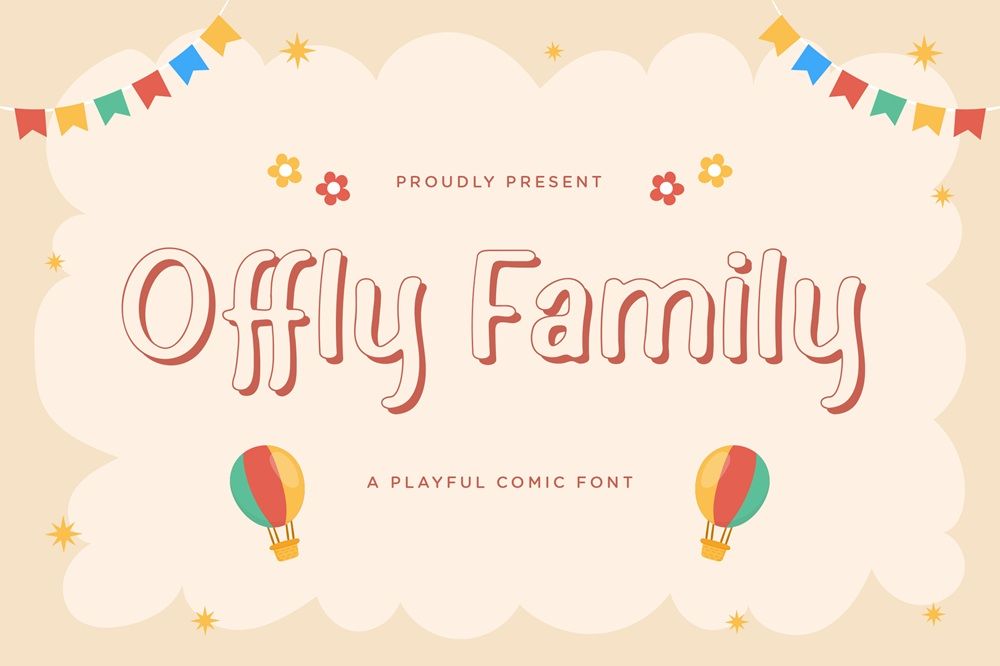
40 Family Quotes That Capture the True Meaning of Home
Family is our first circle of supporters who always believe in us before the world ever does. They lift us through challenges and celebrate our quiet victories. That’s why family quotes feel so powerful and comforting in everyday life. They capture the warmth, love, and belonging that make home our safest place.
Moreover, as we grow and our stories change, these quotes continue to guide and inspire us. They spark gratitude, strengthen bonds, and highlight moments we often overlook. So, keep reading and let these heartfelt words speak to you!
40 Family Quotes for Captions, Gifts, and Home Decor Ideas
If you’re preparing a heartfelt gift, enhancing your home décor, or searching for captions to highlight meaningful moments, these warm quotes about family will help. Let’s dive in!
Minimalist Family Quotes
1. Family grows strongest when love stays simple, honest, and quietly understood.
2. Becomes peace when hearts choose patience over noise and expectations.
3. In our small moments together, family love shines its brightest light.
4. Family remains steady when we listen gently and care without conditions.
5. Our togetherness matters more than perfect plans or beautifully arranged days.
6. Love within a family deepens through shared silence, support, and kindness.
7. Family is built daily through tiny gestures that quietly strengthen connection.
8. We become better together when kindness leads to every choice we make.
9. A calm family grows from understanding, trust, and consistently choosing love.
10. Simple family moments often become memories that warm us for years.
When Family Hurts You Quotes
1. When family wounds you deeply, silence becomes heavier than spoken pain.
2. Hurt from family lingers longest because love expects safety, not sorrow.
3. Broken trust from family cuts differently, leaving quiet scars inside forever.
4. Love aches hardest when family becomes the source of our heartbreak.
5. Sometimes family breaks us, yet we keep loving them through tears.
6. When home hurts, healing feels confusing, slow, and painfully uncertain inside.
7. Family pain teaches strength we never wanted but learned to carry.
8. Their words shattered me quietly, leaving echoes I still face alone.
9. Hurt feels heavier when coming from people meant to protect us.
10. Even loved ones can wound deeply, leaving memories difficult to forgive.
Inspirational Quotes About Family
1. Love at home inspires courage to grow beyond every lingering doubt.
2. Their belief in me strengthens every dream I once feared chasing.
3. We rise higher when we lift each other with genuine encouragement.
4. Home becomes powerful when support replaces criticism and quiet fear.
5. Their faith in me sparked confidence I never knew I had.
6. Together we learn resilience through challenges that seemed impossible alone.
7. Every step forward feels easier when love surrounds our intentions.
8. Hope grows stronger when shared with hearts walking beside us.
9. Their guidance lights paths I never imagined I could follow.
10. Strong roots at home help us reach dreams far above.
Lighthearted Family Quotes
1. Our family survives chaos daily with snacks, hugs, and questionable decisions.
2. Laughter grows louder when we accidentally match chaos with humor.
3. Home feels happier when nobody pretends to be perfectly normal.
4. We argue loudly, love harder, and snack constantly without shame.
5. Every family moment improves when someone brings unexpected home.
Family Love Quotes for Parents, Kids, and Siblings
1. Parents guide gently, helping us grow stronger with every small challenge.
2. Kids remind us that joy lives in simple moments we often overlook.
3. Siblings tease endlessly, yet protect fiercely when life feels difficult.
4. Parents teach love through patience, presence, and everyday quiet sacrifices.
5. Kids fill our home with laughter, chaos, wonder, and unforgettable memories.
7 Fonts for Family Quotes That Bring Warmth to Every Design
To make your quotes for family feel more meaningful, the fonts you choose play a powerful role in shaping the emotion behind every word. Thus, use these font choices to bring extra warmth, charm, and heart to every family-centered design you create.
1. Offly Family
A fun and cheerful comic-style font for kid-friendly designs, family scrapbooks, and lighthearted quotes.
2. Honey Belly
Soft, round, charming, and perfect for warm and affectionate family messages.